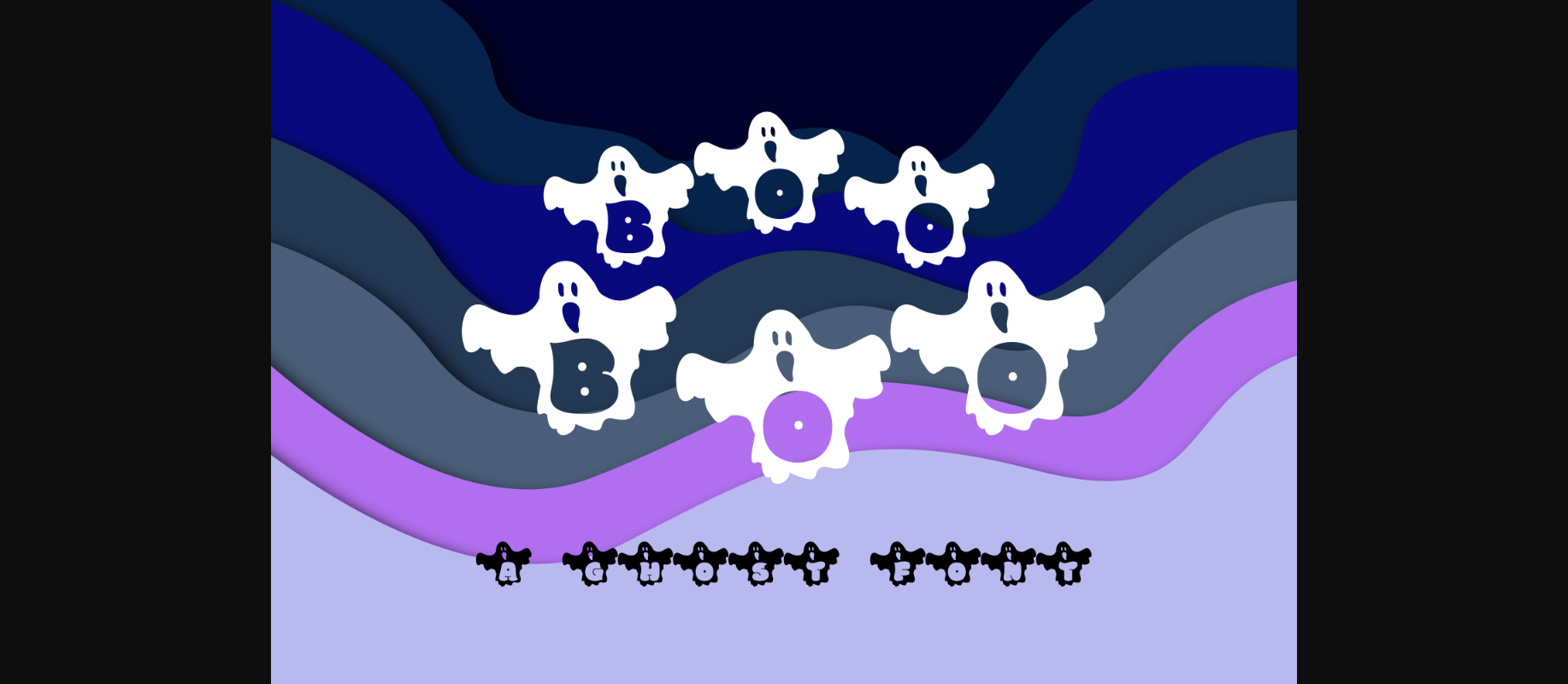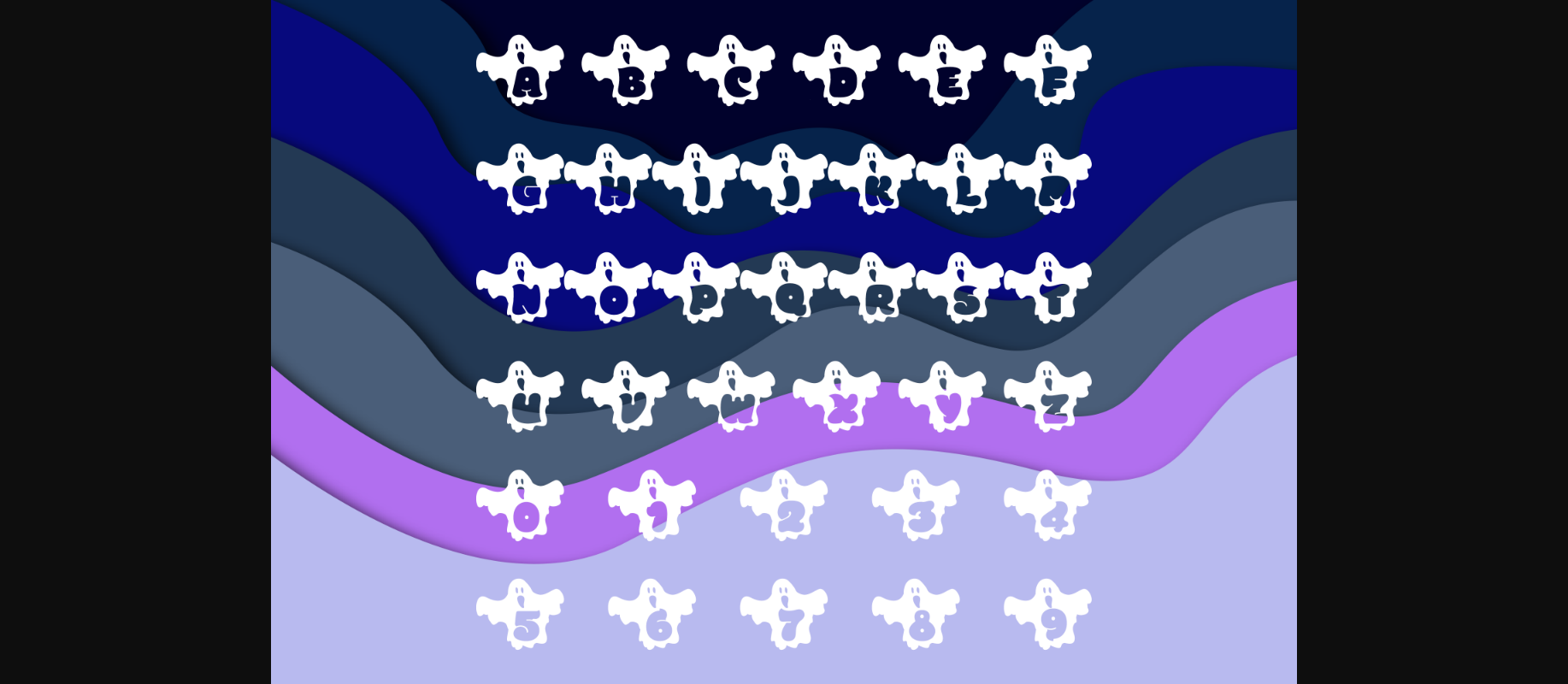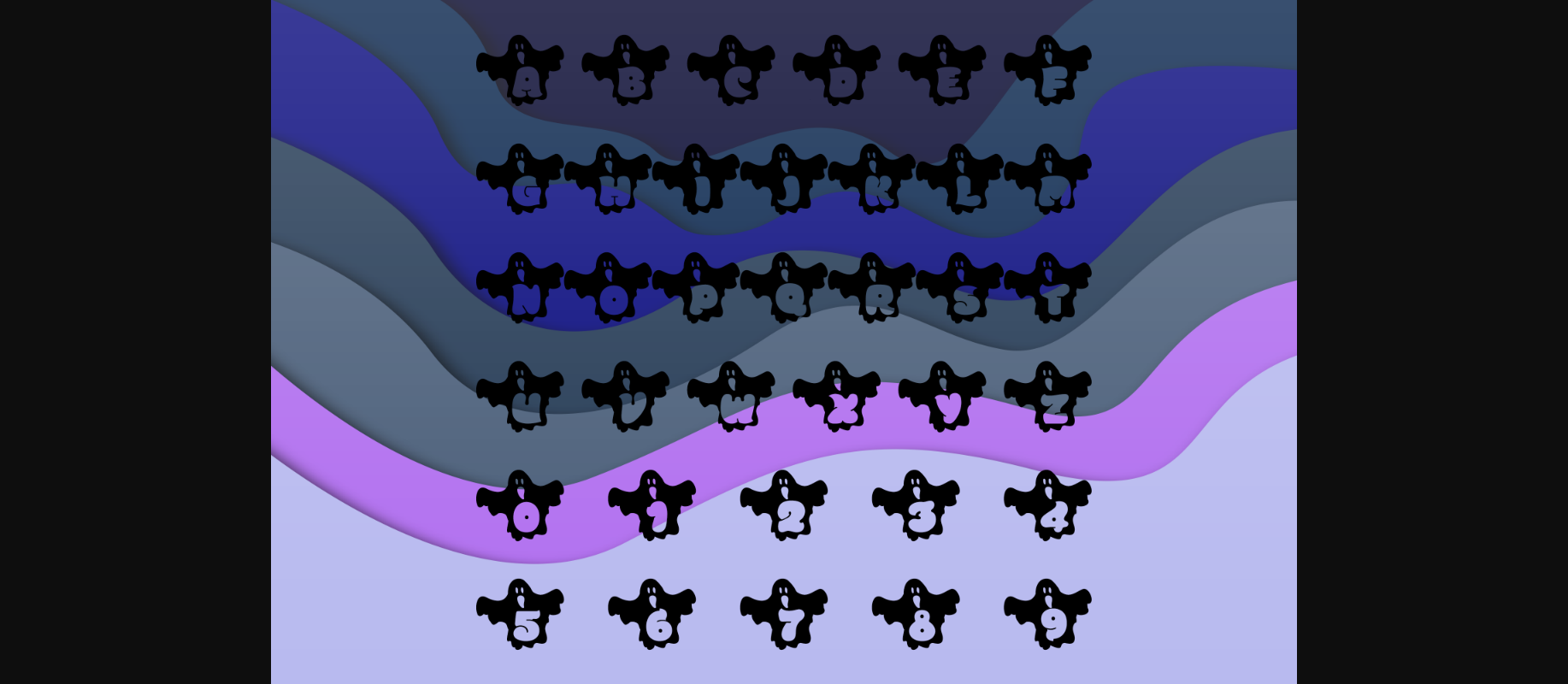
Boo Boo Font
About Boo Boo Font
Boo Boo is an incredibly cool and spooky decorative font. Add it to each of your Halloween designs, and they will instantly stand out.